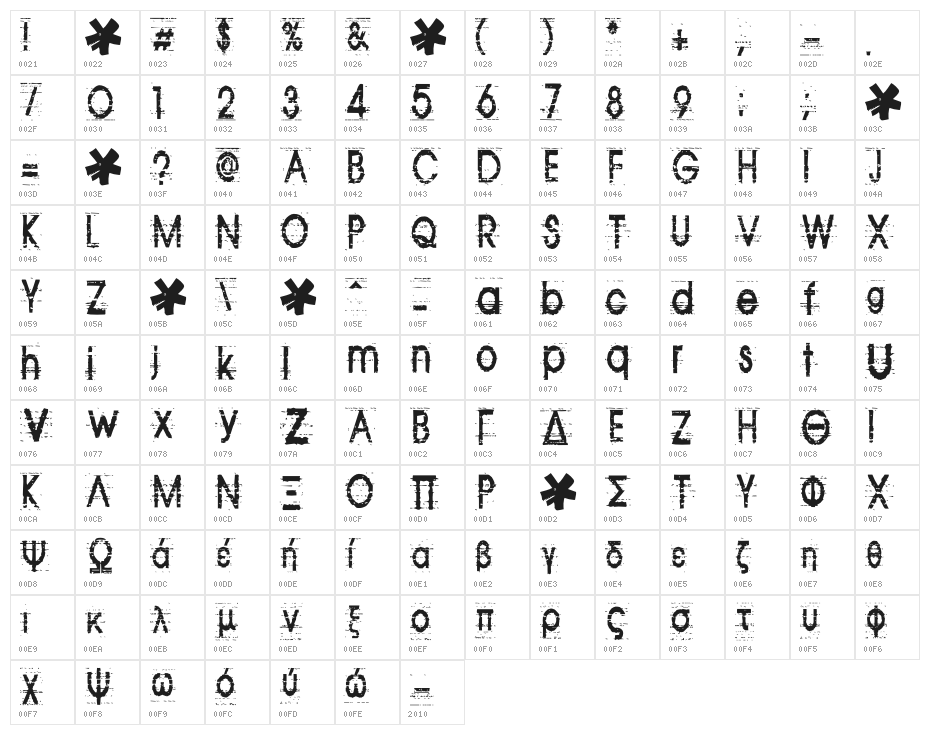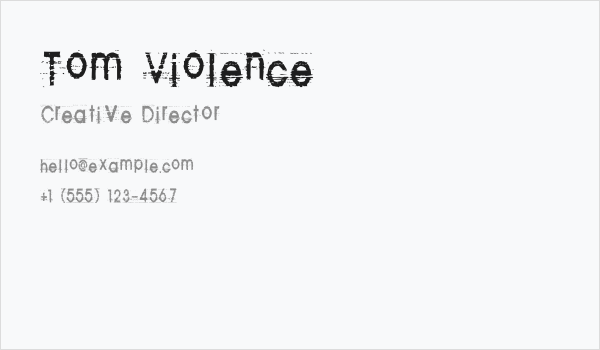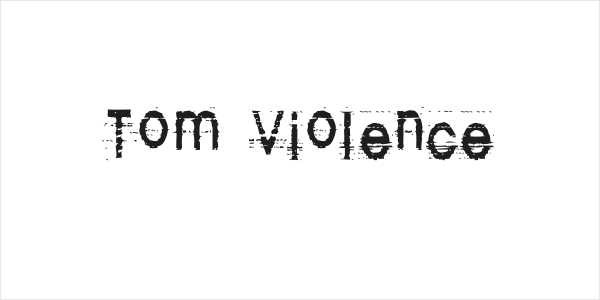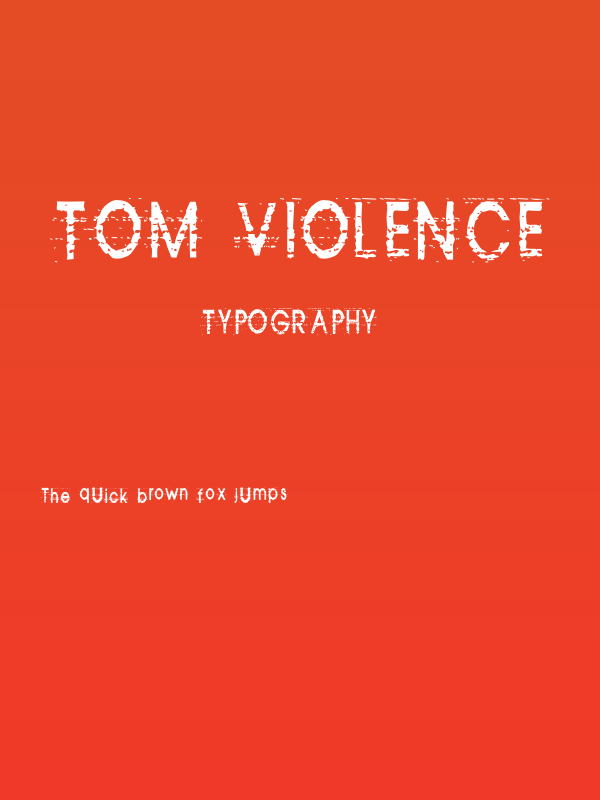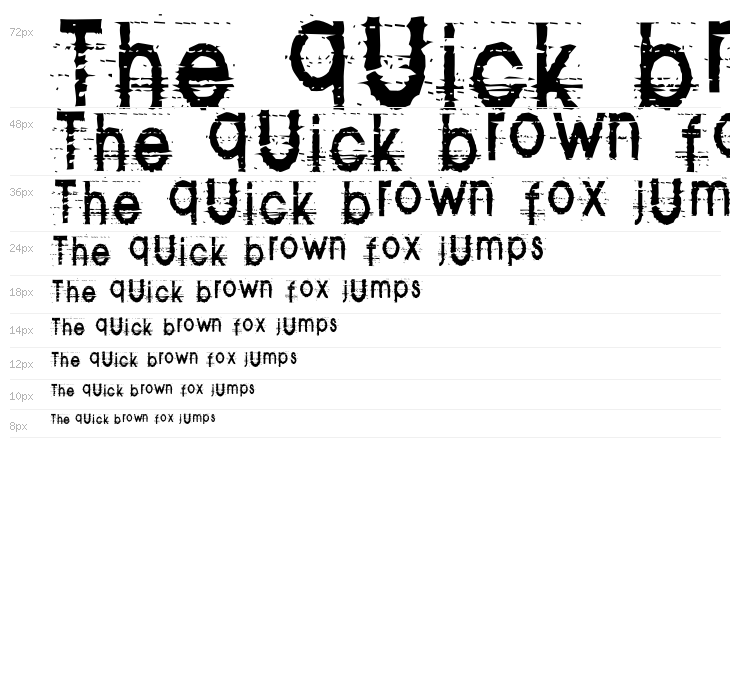
Tom Violence Font
Tom Violence Description
This font features a distressed, grunge style with a rough, textured appearance. The characters are bold and have an uneven, worn-out look, giving them a rebellious and edgy feel. The uppercase and lowercase letters maintain a consistent style, with jagged edges and a sense of chaos. Numbers and special characters follow the same aesthetic, adding to the overall ruggedness. This font is perfect for projects that require a raw, urban vibe, such as music album covers, posters, or any design that aims to convey a sense of intensity and nonconformity.
Overall StyleGrunge, Edgy, Urban
Proposed ProjectsIdeal for music album covers, edgy posters, urban-themed designs, and rebellious branding.